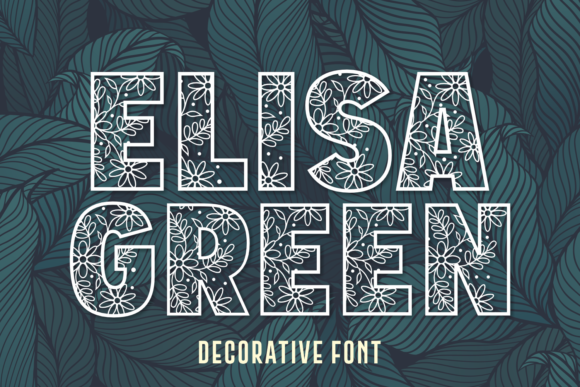
Elisa Green Font
**Elisa Green: A Blossoming Beauty for Your Creative Journey**
In a whimsical world where imagination knows no bounds, there exists a font that captures the essence of spring's vibrant hues and delicate charm. Enter Elisa Green, a decorative masterpiece from Creative Fabrica Fonts, ready to transform your digital canvas into a verdant paradise.
With each character adorned in a tapestry of exquisite flowers and lush leaves, Elisa Green dances across your screen like a gentle breeze carrying the scent of a thousand blooms. Unleash your creativity and let this enchanting font guide you towards breathtaking designs that will leave your audience spellbound.
Picture the allure of spring cards adorned with Elisa Green's graceful curves, where heartfelt messages bloom into existence. Envision nature decorations that come alive with the font's inherent charm, inviting a touch of the outdoors into your living space. Craft captivating headlines that burst forth with vibrant colors, drawing attention like a magnet.
Elisa Green's versatility extends to magazines, quotes, and t-shirts, adorning them with an air of elegance and sophistication. It's the perfect font for capturing the essence of nature's beauty, whether you're creating home decorations or embarking on enchanting design projects.